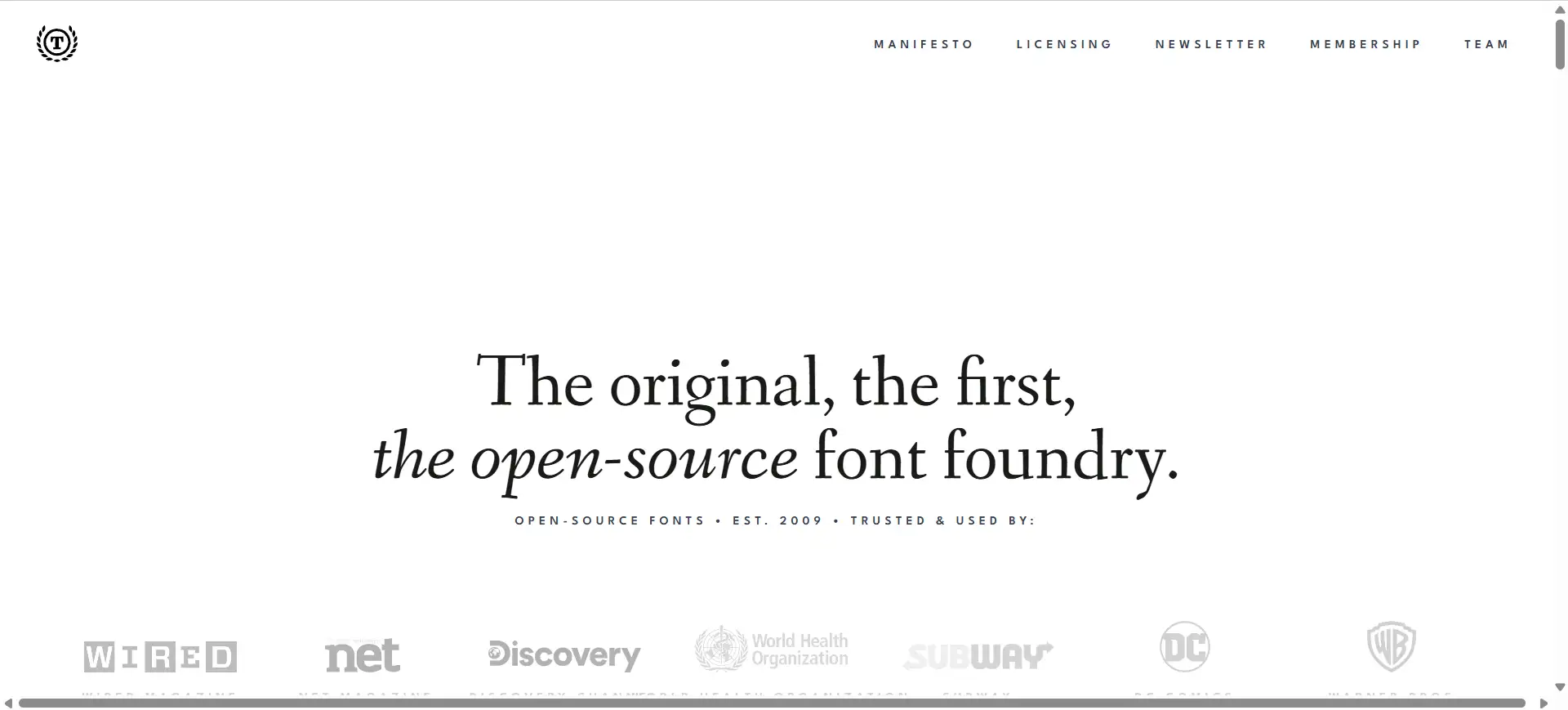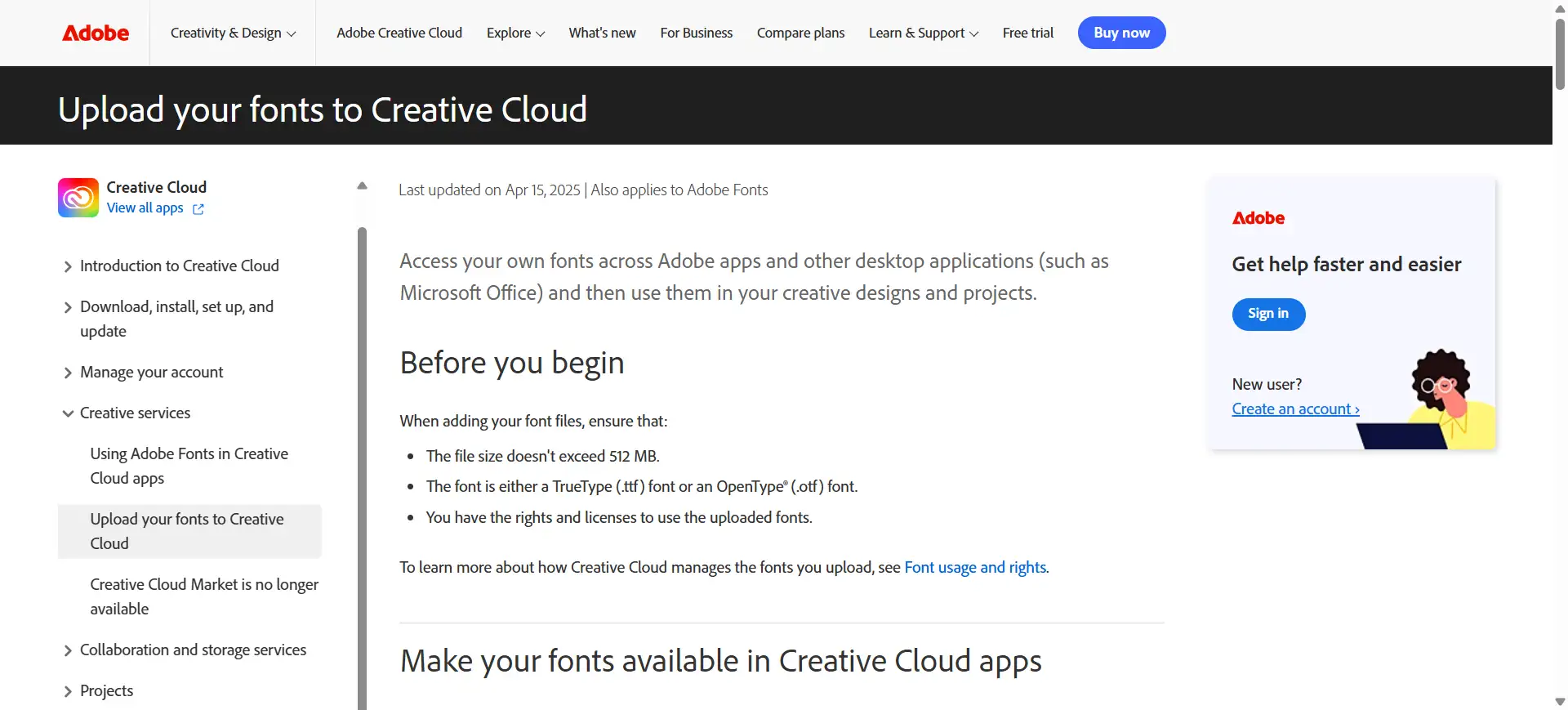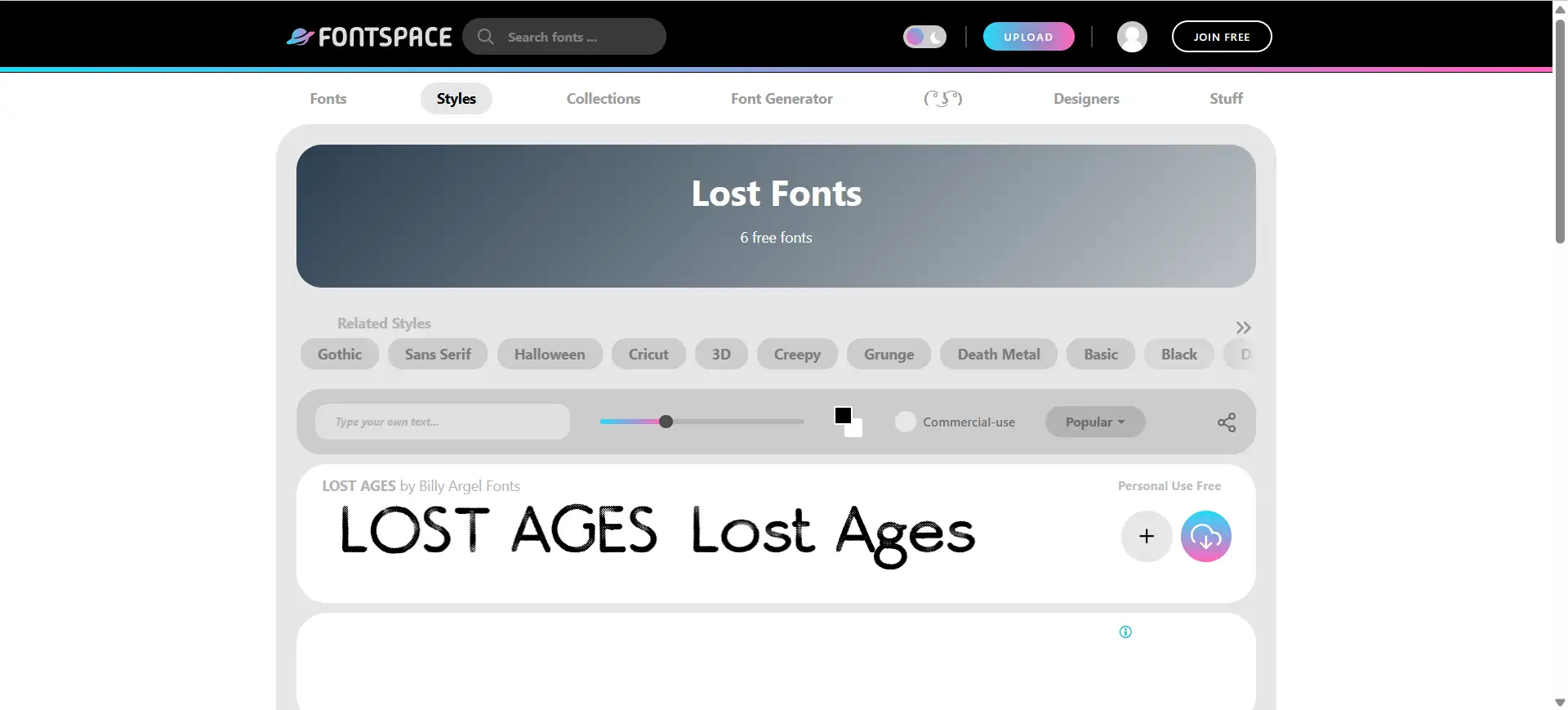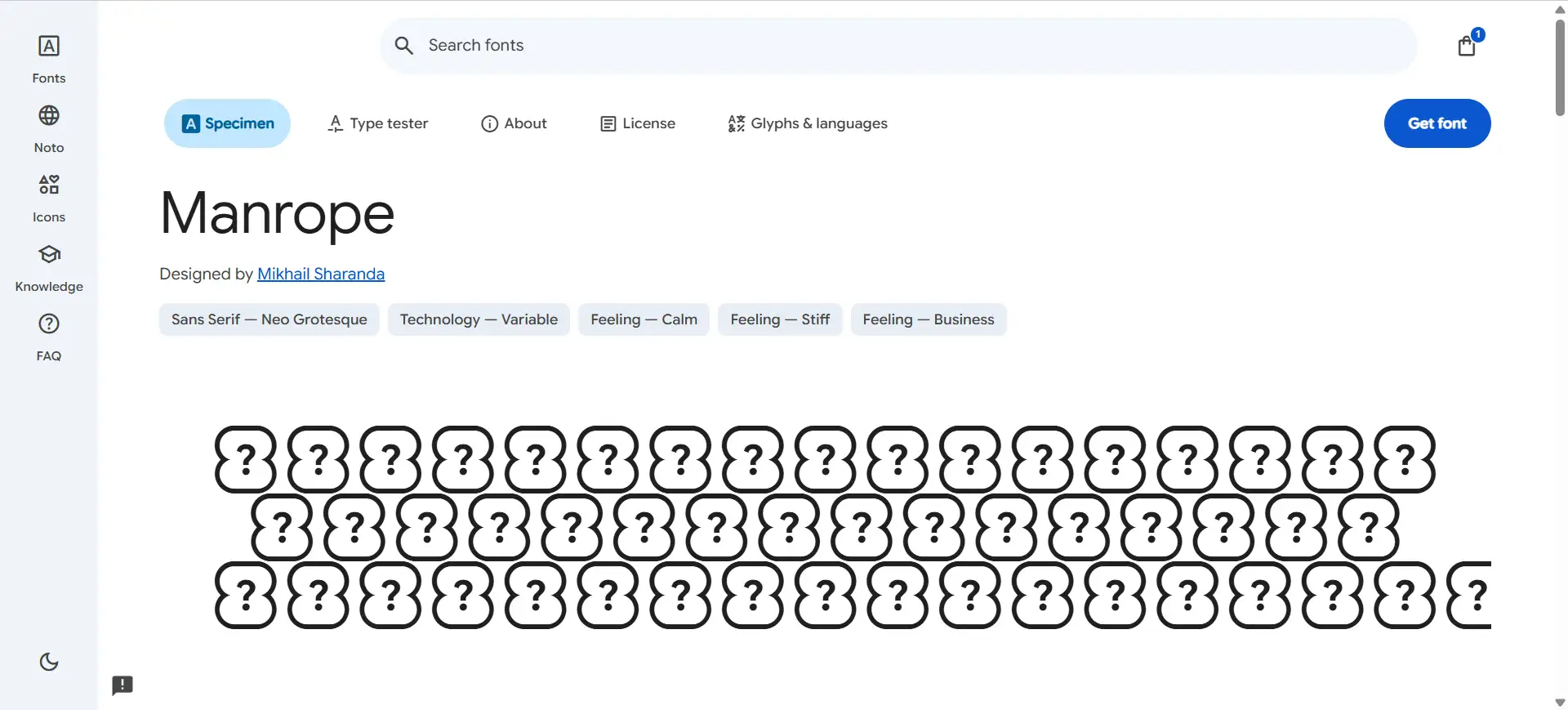
Best Free Font Websites Designers Actually Use (2025 Picks)
Discover the top free font websites designers trust in 2025—plus see how Wegic’s integrated font management gives your site fresh, customizable typography.
Fonts aren’t just about aesthetics anymore—they shape how people experience your brand. In 2025, good typography means better legibility, stronger branding, improved SEO, and even faster performance. The right font can subtly influence trust, hold attention longer, and boost your site’s UX in measurable ways. That’s why designers aren’t just grabbing any free font—they’re curating carefully from trusted sources.
With so many platforms offering free fonts, it’s easy to get overwhelmed. But not all sites are created equal. Some have outdated collections, unclear licenses, or poor quality control. That’s why we’ve rounded up the best free font websites that real designers actually rely on in their daily work.
In this guide, you’ll find handpicked recommendations—from the giants like Google Fonts to indie favorites like Fontshare and The League of Moveable Type. Whether you’re hunting for modern sans-serifs, display typefaces, or elegant serifs, these are the best free font websites for designers who demand both beauty and reliability.
How We Chose These Sites
With thousands of font websites across the web, narrowing them down wasn’t about quantity—it was about quality. We focused on five core criteria:
- Font quality (design integrity, kerning, readability)
- Diverse variety in typefaces and categories
- UI-friendly integration for web and design tools
- Real-world usage among today’s professional designers
We didn’t just skim lists or plug random names into a search bar. Instead, we tracked current design discussions, reviewed platforms actively used in branding and web design, and factored in how recently updated and popular each site is in 2025. This guide is shaped by what designers are actually using now—not five years ago.
Each recommendation isn’t just “good”—it’s practical, relevant, and design-approved. If you're seeking the best free font websites that professionals genuinely turn to for projects, you're in the right place.
Top Free Font Websites Designers Use
Let’s dive into the best free font websites for designers with real-world pros, cons, and use cases that go beyond hype.
1. Google Fonts
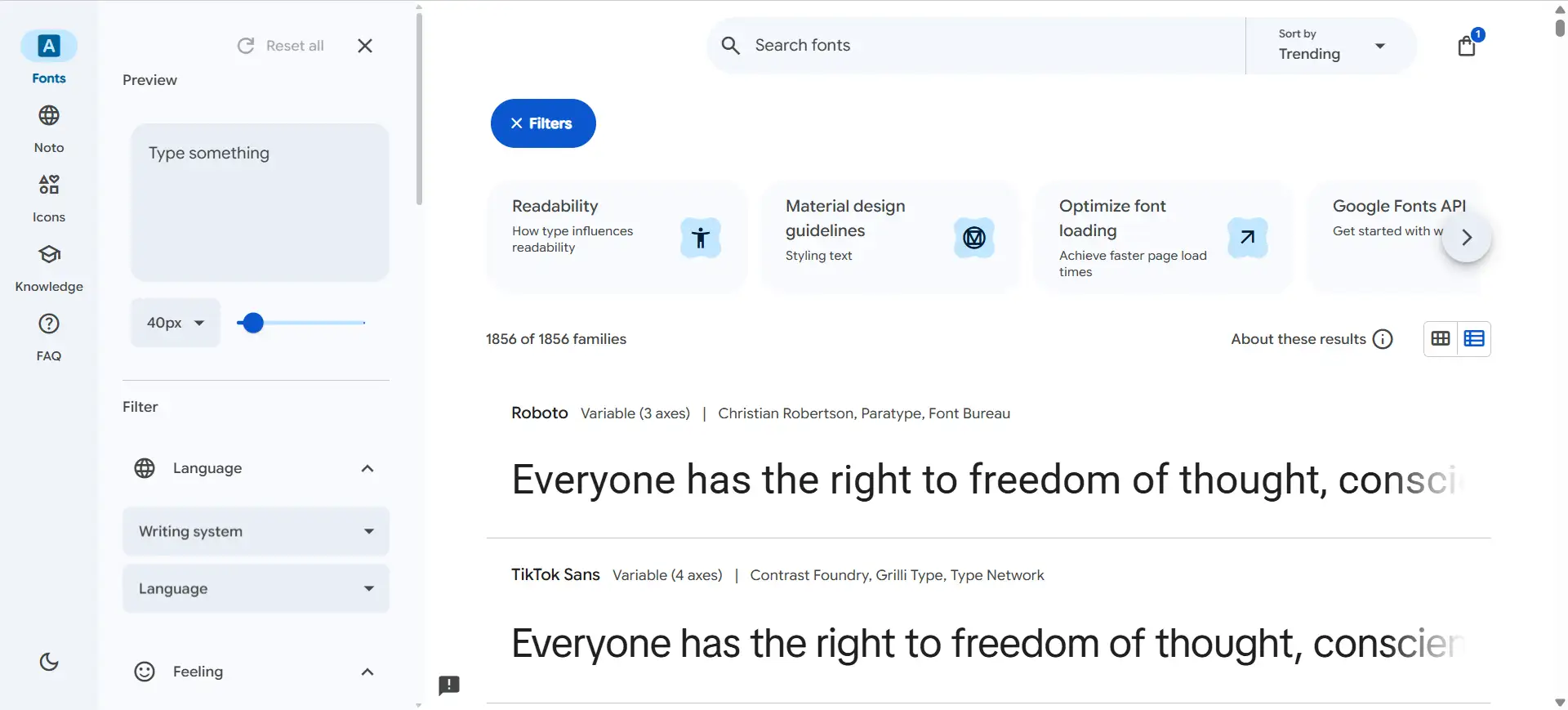
Overview:
Google Fonts remains the reigning giant in the free font world, and for good reason. With over 1,800 font families and nearly 500 variable fonts, it’s the largest open-source font repository—engineered for performance and scale.
Pros:
- Extremely fast web integration using Google’s CDN
- Great pairing suggestions and preview tools
- Updated regularly with trending fonts
Cons:
- Limited in unique, niche or expressive typefaces
- Not all fonts are top-tier in visual balance or kerning
Standout Features:
- Variable fonts for responsive typography
- Performance-optimized font loading (great for SEO)
- Multilingual support with global script coverage
Ideal Use-Case:
Anyone building websites—especially with platforms like WordPress, Webflow, or Squarespace—will appreciate the seamless integration. It’s also perfect for startups who want scalable, legally safe fonts.
Whether you’re a beginner or advanced user, Google Fonts is consistently one of the best free Google font websites, offering both power and ease.
2. Fontshare
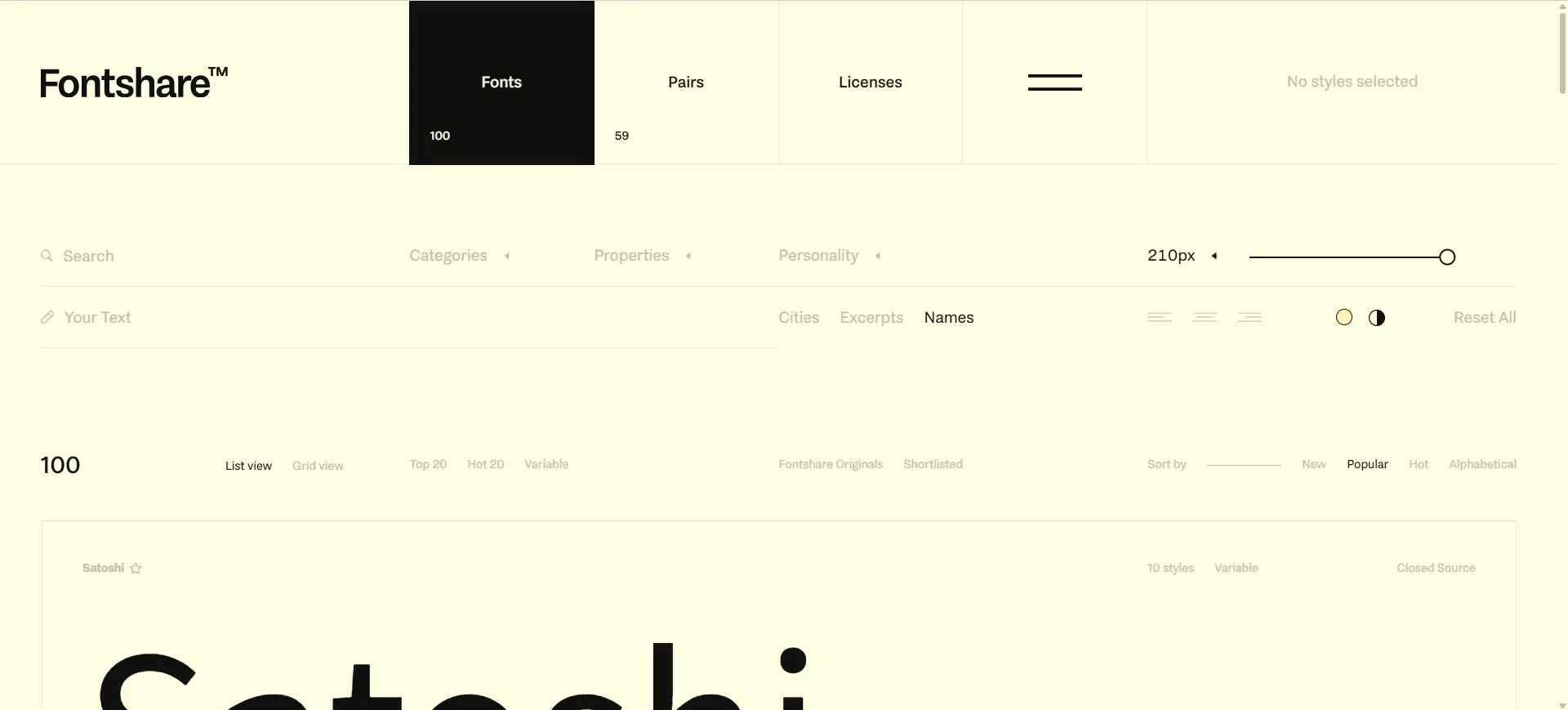
Overview:
Fontshare is a newer but highly respected platform curated by Indian Type Foundry. Every font on the site is professionally designed and free for commercial use.
Pros:
- Sleek, modern fonts ideal for UI/UX and branding
- High-quality kerning and readability
- Free for personal and commercial use
- Compact, curated collection (no fluff)
Cons:
- Smaller catalog compared to Google Fonts
- No web-hosting—requires downloading and self-hosting
Standout Features:
- Ideal for product designers needing clean, modern sans-serifs
- Offers font families with stylistic alternatives
Ideal Use-Case:
Perfect for creative professionals and product teams looking for refined, modern typography without sifting through clutter. Fontshare is one of the best free font websites for designers who care about visual precision and licensing simplicity.
4. Font Squirrel / Open Foundry
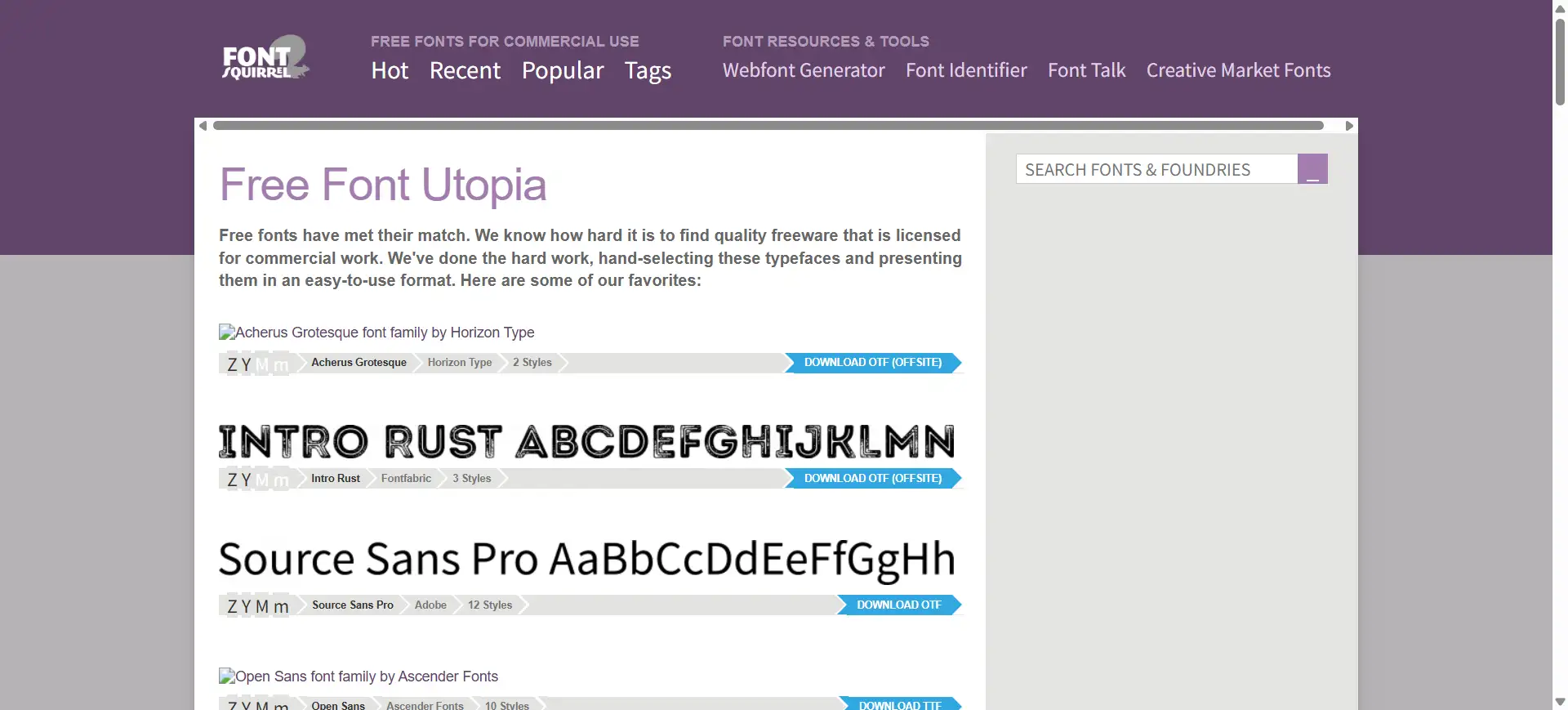
Overview:
Font Squirrel and Open Foundry both serve as curated havens for high-quality free fonts. Font Squirrel vets every typeface for commercial use, while Open Foundry leans more toward experimental and open-source work.
Pros:
- Filter by style, popularity, and designer
- Discover hidden gems not on mainstream sites